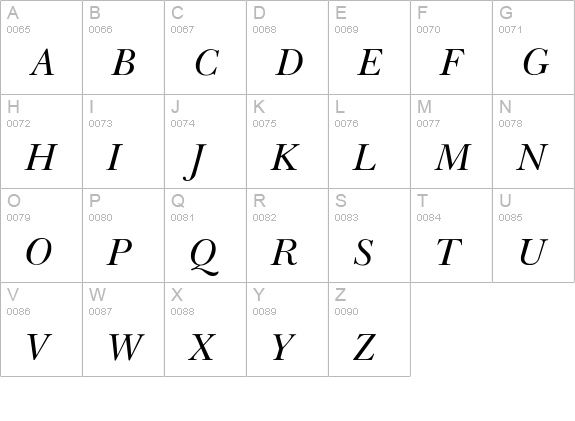
Bloodhound Lite Italic Font Details
Bloodhound Lite Italic is a distinctive, italic variant in the Bloodhound typeface family \xE2\x80\x94 well suited to design and typography projects.
Introducing Bloodhound Lite Italic font, a sleek and modern typeface that exudes elegance and sophistication. This font is perfect for adding a touch of style to your designs, whether for branding, advertising, or any creative project. With its slender and italicized letterforms, Bloodhound Lite Italic font brings a sense of fluidity and movement to your text. Best of all, Bloodhound Lite Italic font is available for free! That's right, you can download this stunning typeface at FontsMarket.com at no cost. Embrace the beauty of this font and elevate your design work with its unique charm and versatility. Don't miss out on the opportunity to enhance your projects with the premium quality of Bloodhound Lite Italic font, now easily accessible for free download.